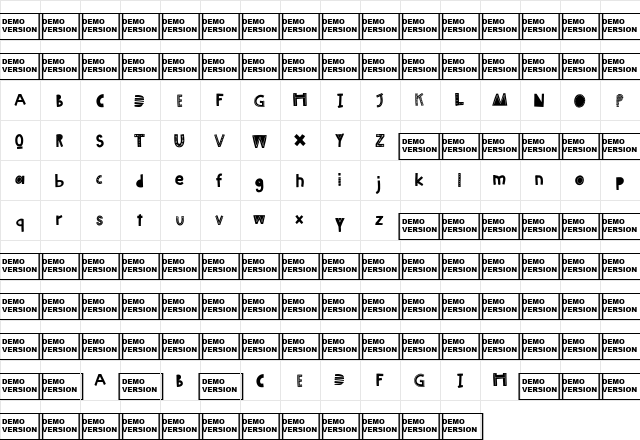
Scandilover Regular
| Foundry | Katsia Jazwinska |
| Designer | Katsia Jazwinska |
Design Context for Scandilover Typeface
Scandilover is a composed and adaptable typeface that performs quietly and consistently across a wide range of design contexts.